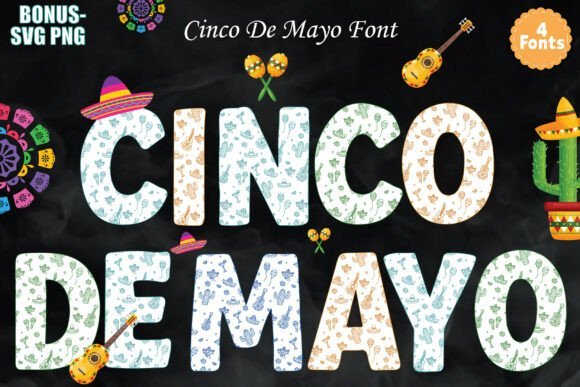
Celebrate with Color and Culture: Introducing the Cinco de Mayo Font
It’s that time of the year when vibrant colors, lively music, and delicious food come together to create an unforgettable fiesta. As you start brainstorming ideas for your Cinco de Mayo celebration, you might find yourself stuck on the perfect design. That’s where the Cinco de Mayo Font comes in – a vibrant and festive alphabet pack that’s sure to add a pop of color to your creations.
Designed with Mexican-inspired patterns and lively details, this font is perfect for designers looking to add a cultural touch to their projects. Whether you’re creating party decorations, t-shirts, or social media graphics, the Cinco de Mayo Font is a valuable addition to your design toolkit. Its versatility and festive vibe make it ideal for a wide range of applications, from Cinco de Mayo celebrations to general Mexican-themed projects.
Cinco De Mayo Font Key Features
- Font Family: Cinco De Mayo is a unique, hand-drawn font designed to evoke the spirit of Mexico’s Independence Day.
- Unique Characteristics: Features intricate, hand-drawn details and ornate flourishes that reflect the cultural heritage of Mexico.
Cinco De Mayo Font Review
I recently had the chance to work with the Cinco De Mayo Font, and I wanted to share my honest thoughts on it. Here’s what I think.
- The font’s festive and celebratory vibe is perfect for any Cinco De Mayo-themed projects or designs. It’s energetic and fun.
- The font’s bold and playful characters add a lot of visual interest to any design. It’s great for titles and headings.
- The font’s bold weight options make it suitable for a variety of design applications, from posters to business cards.
- The font’s design can be a bit overwhelming if used extensively. It’s best to use it sparingly to avoid visual fatigue.
- The font’s character set is limited, which can be a problem if you need to typeset text in Spanish or other languages that use accents or special characters.
- The font’s kerning could be improved, especially for certain letter combinations.
The Cinco De Mayo Font is a fun and festive addition to any design project. While it has its limitations, it’s perfect for adding a touch of celebration and energy to your designs. Just be sure to use it thoughtfully and sparingly to avoid overwhelming your audience.
Use the Cinco De Mayo font for festive and celebratory designs, such as party invitations, posters, and social media graphics.
– To get the most out of the font, pair it with bold and bright colors.
– Experiment with different font sizes and styles to create a dynamic and eye-catching design.
– Use the font for holiday-themed designs, such as Christmas, Halloween, or Easter.